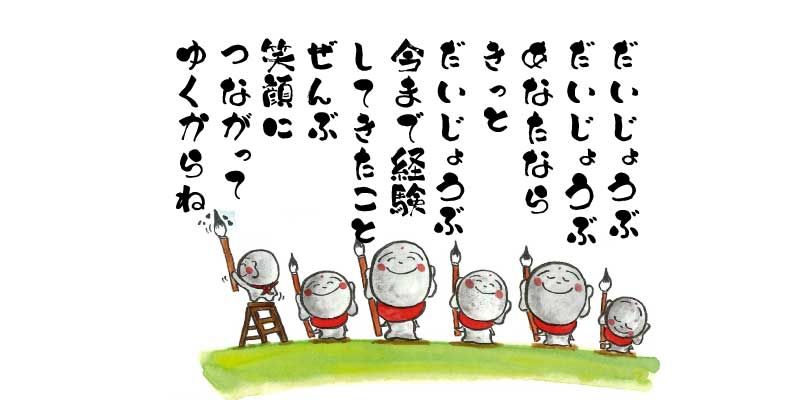
AB-taro has the flavor of a brush script.
Within a single character, stroke widths might vary, strokes might be written in reverse order, and in some cases a character might be composed of only one stroke. . . . Drawing characters as pictures produces a uniquely strong and eye-catching letter forms.
Using this typeface, characters in bar and restraurant menus will be very visible! Using this typeface for body text, the design characterized by handwritten characters will convey a warm atmosphere, as if the words were written in your own hand.
This series of fonts contains original hand-written Japanese typefaces based on pen calligraphy released in 2002. With a warm-hearted look, these fonts will draw the reader’s eye to key points of a design.